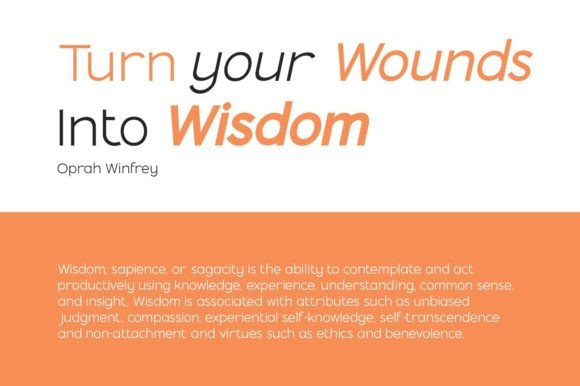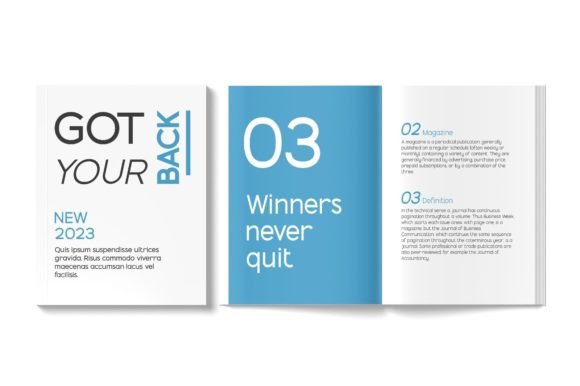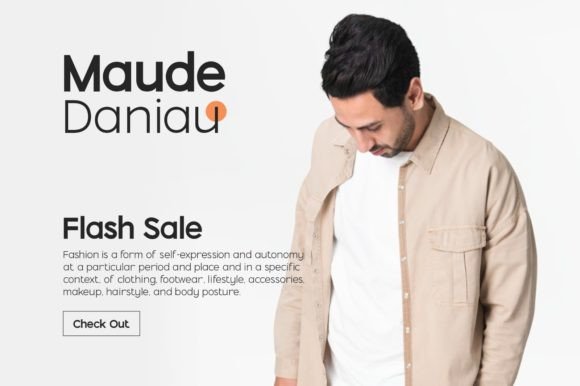
Stella Nova Font
Stella Nova is a clean, exquisite, and modern sans-serif font that is the epitome of simplicity and elegance. Its minimalist design and precise geometry make it perfect for high-end branding, editorial projects, and modern websites. With its timeless style, Stella Nova is the perfect choice for any project that requires a touch of sophistication.